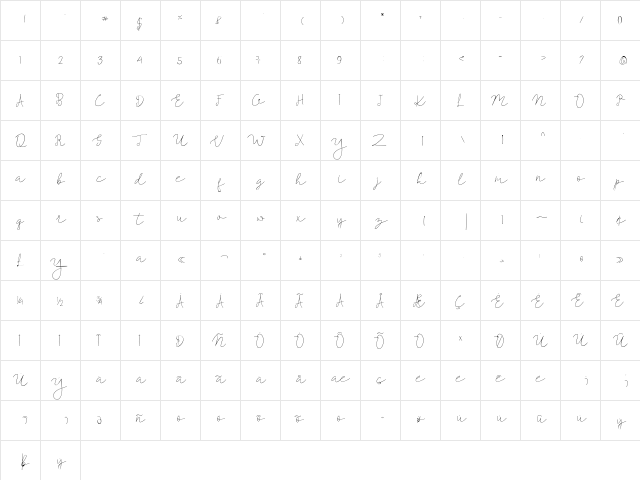
Le French Regular
Design Context for Le French Typeface
Le French is a composed and adaptable typeface that performs quietly and consistently across a wide range of design contexts.